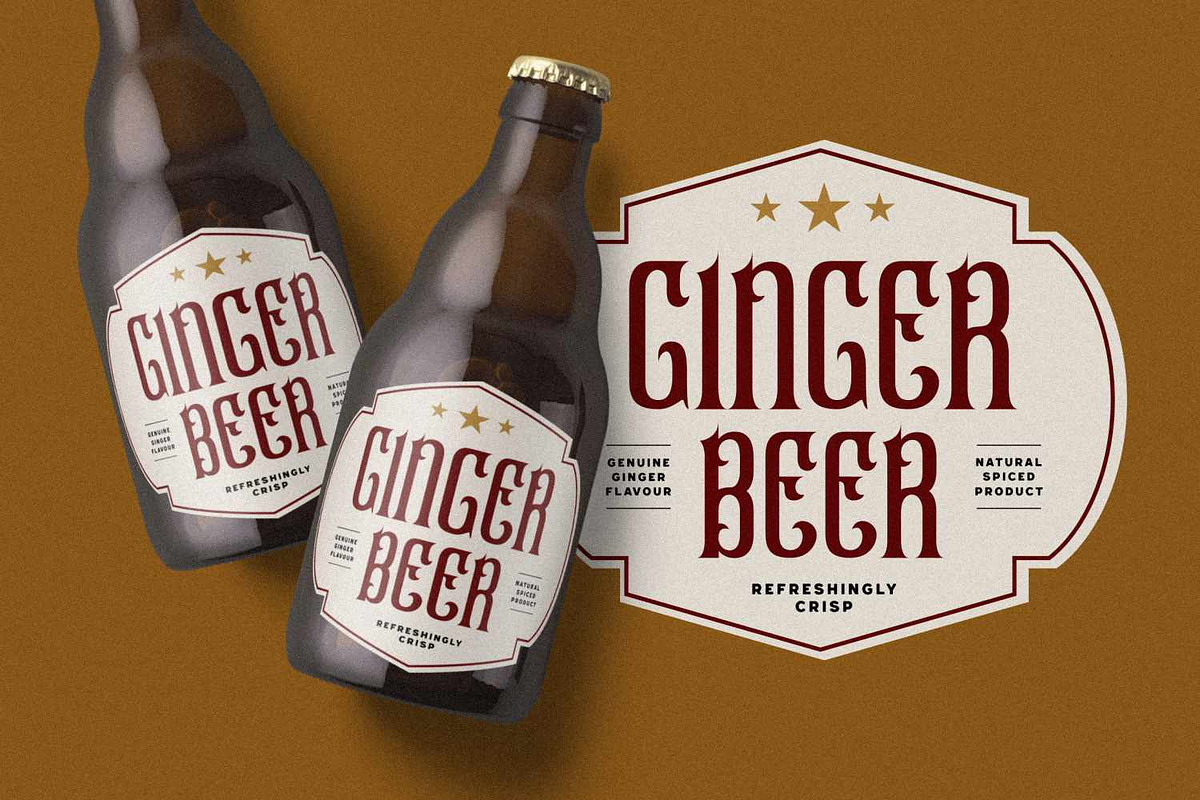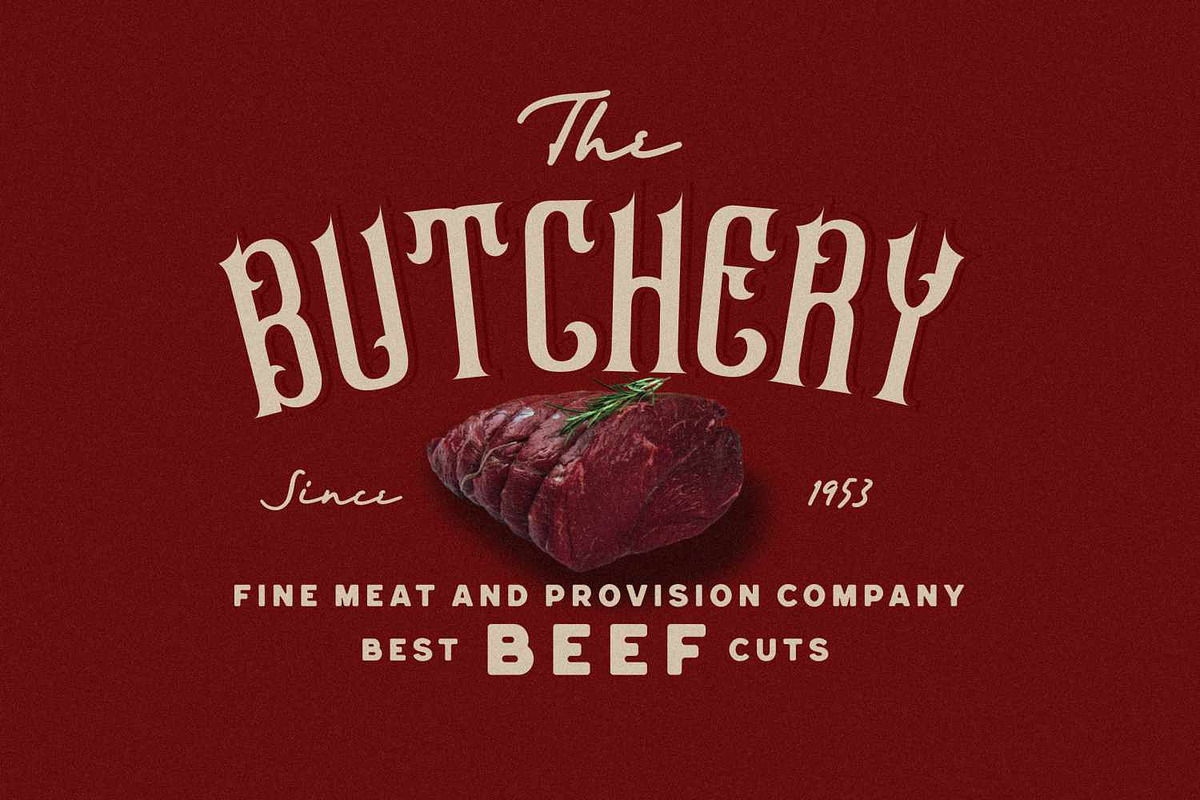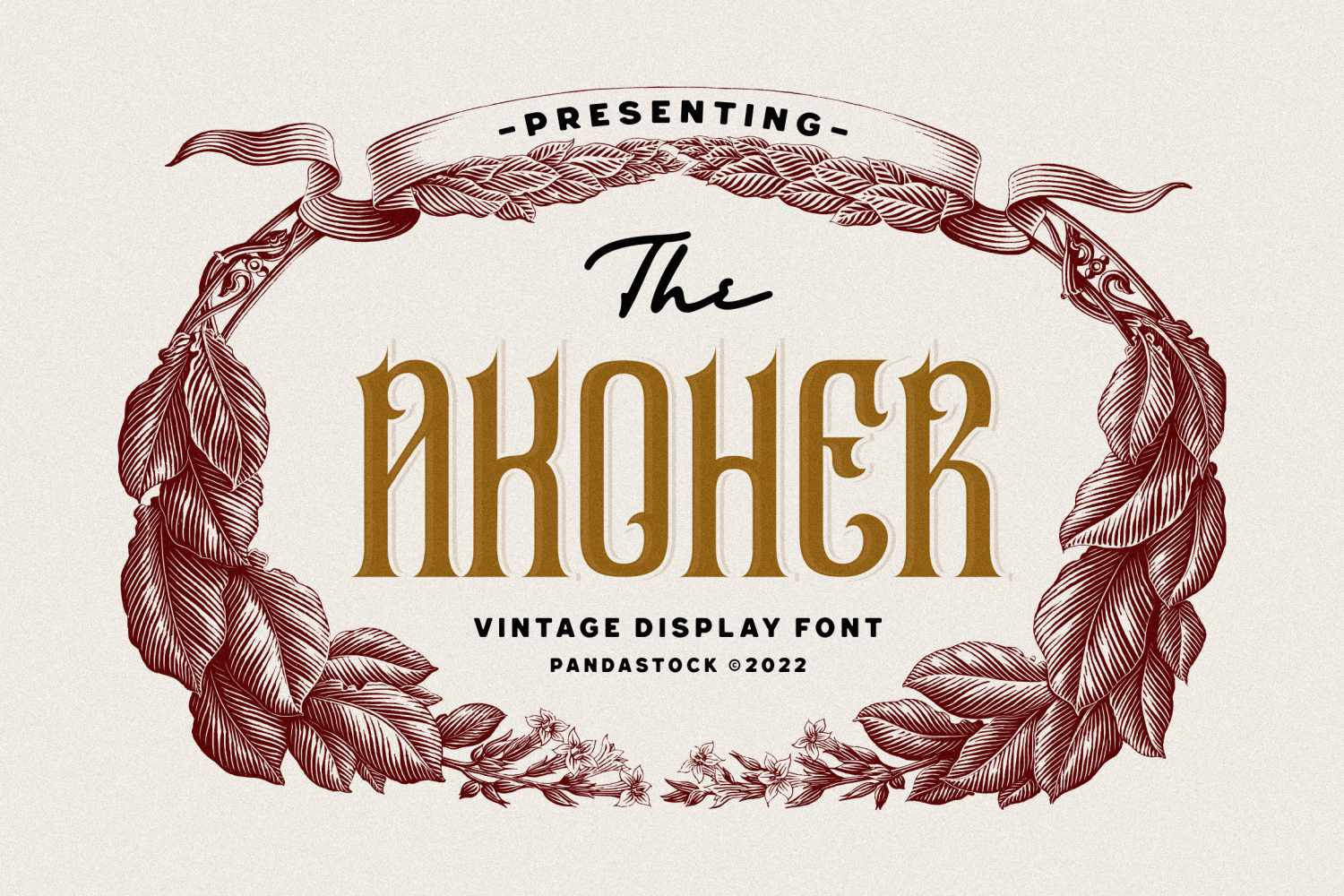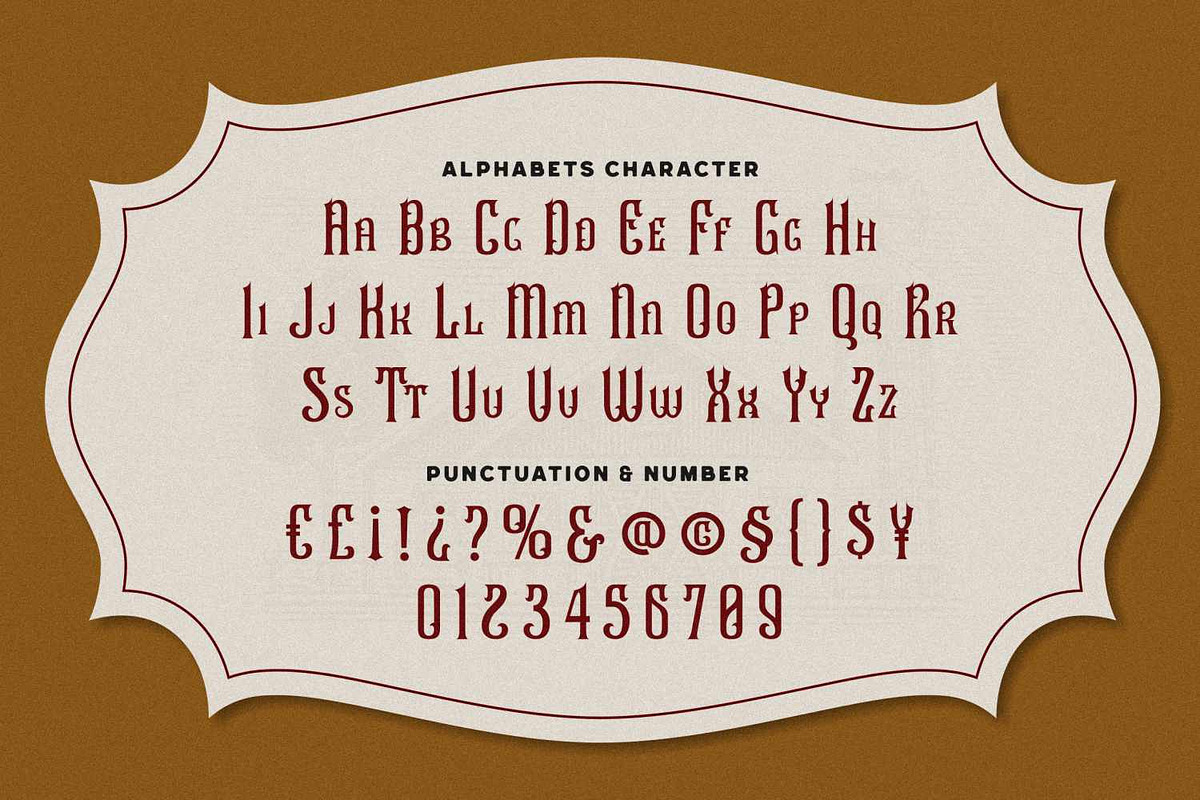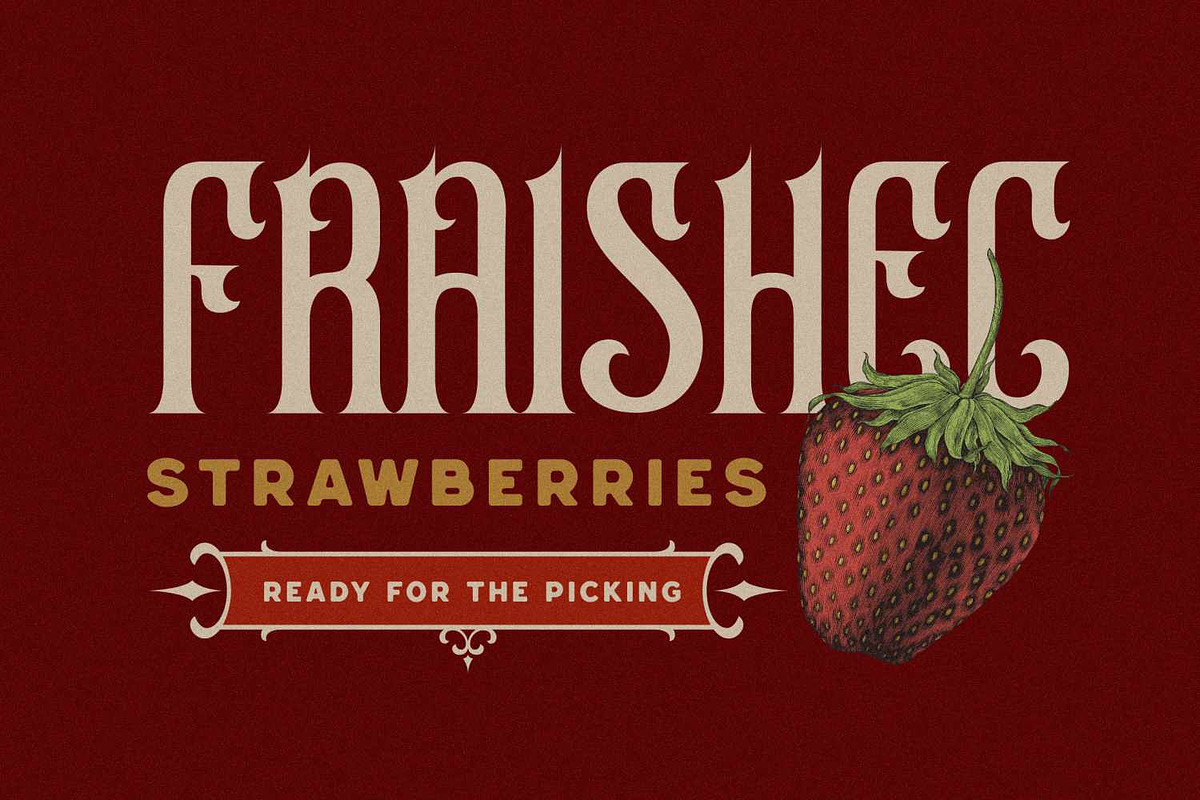
Akoher - Vintage Decorative Font
Akoher is a vintage decorative font blends bold character shapes with refined decorative details, giving every letter a sense of handcrafted charm. Featuring tall, narrow letterforms with dramatic vertical emphasis, and ornamental cut in, it captures the essence of early 20th century packaging and signage. Each letter is design with sharp spurs, bracketed wedges, and curled terminals that create a bold, heritage silhouette.
Use it anywhere you want handcrafted premium vibes: beverage, heritage inspired campaign, poster, farm stand fruit branding, apothecary packaging, festival posters, and editorial titles.